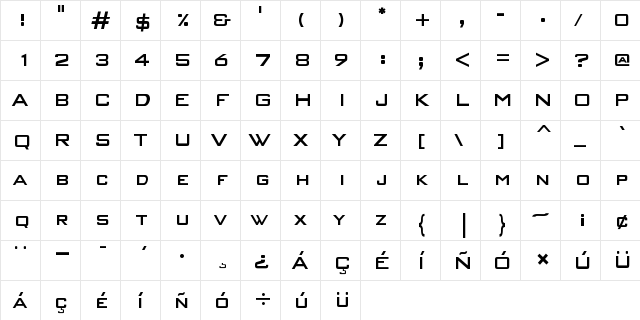
NEW ACADEMY Font Preview
| Designer | Gustavo Paz L. |
Design Context for NEW ACADEMY Typeface
NEW ACADEMY is a composed and adaptable typeface that performs quietly and consistently across a wide range of design contexts.
Pro Tip: Use NEW ACADEMY in both headline and body roles to test its range before committing to a single application.